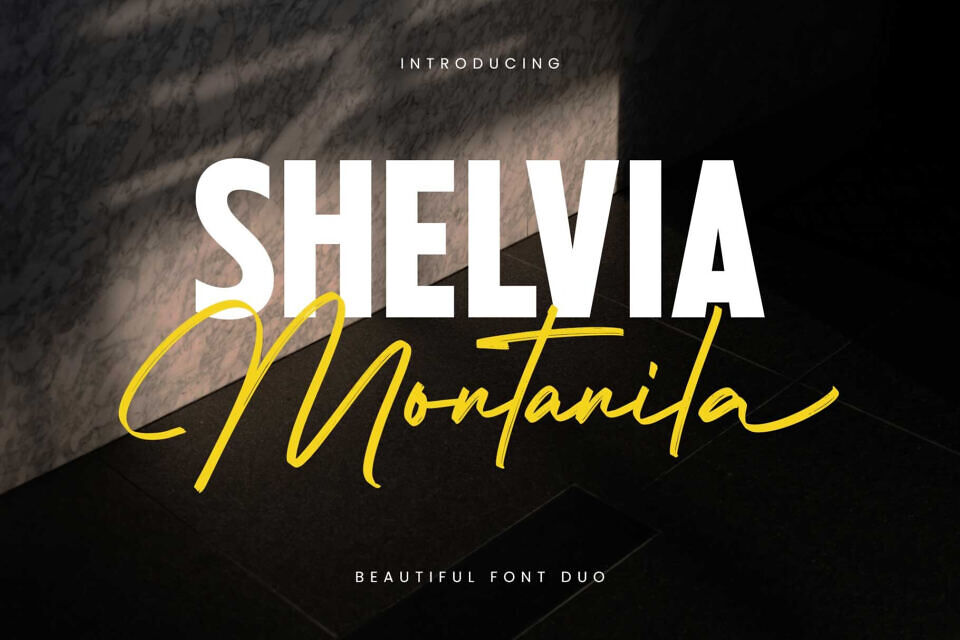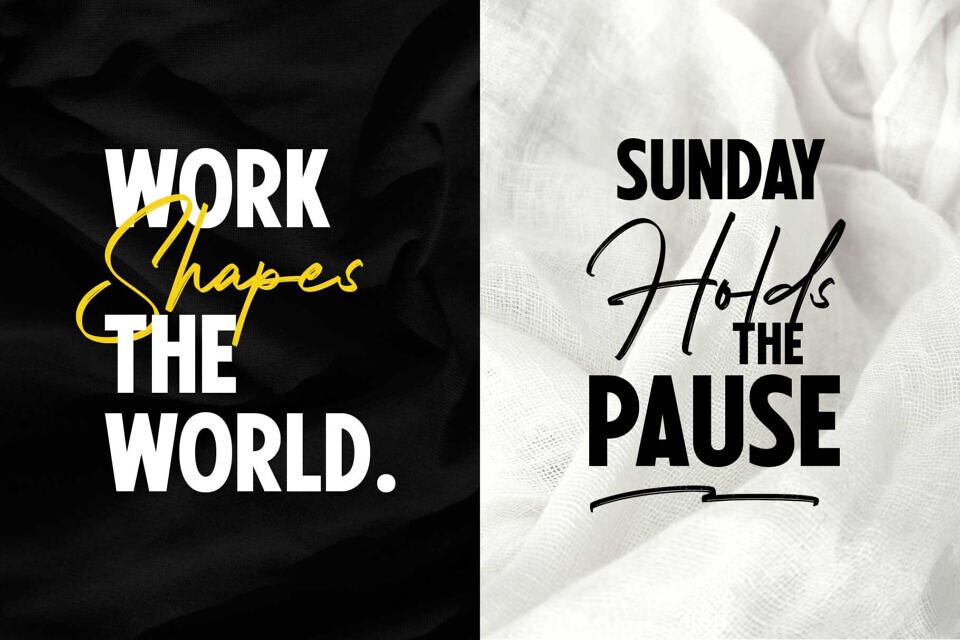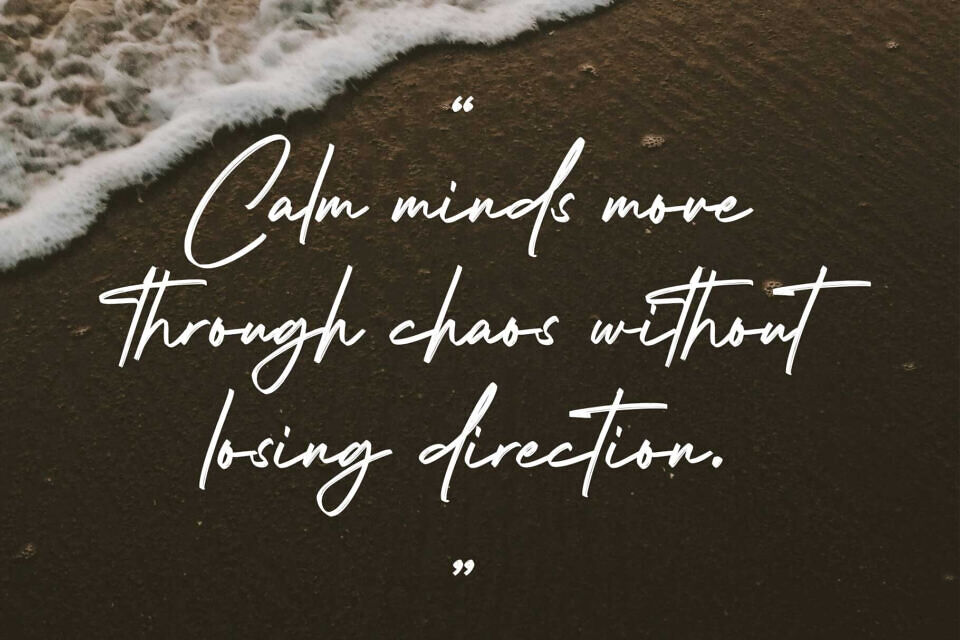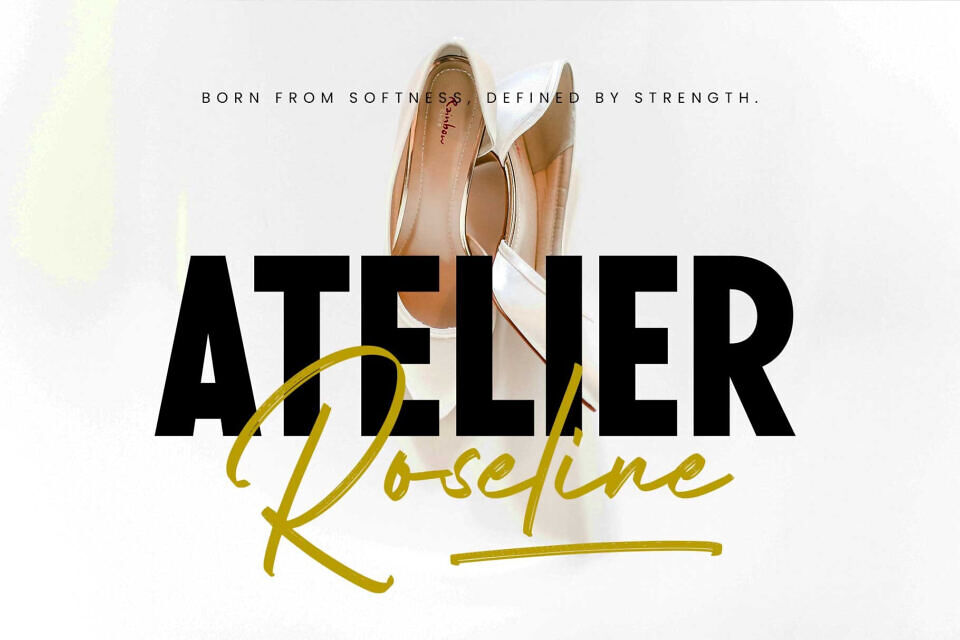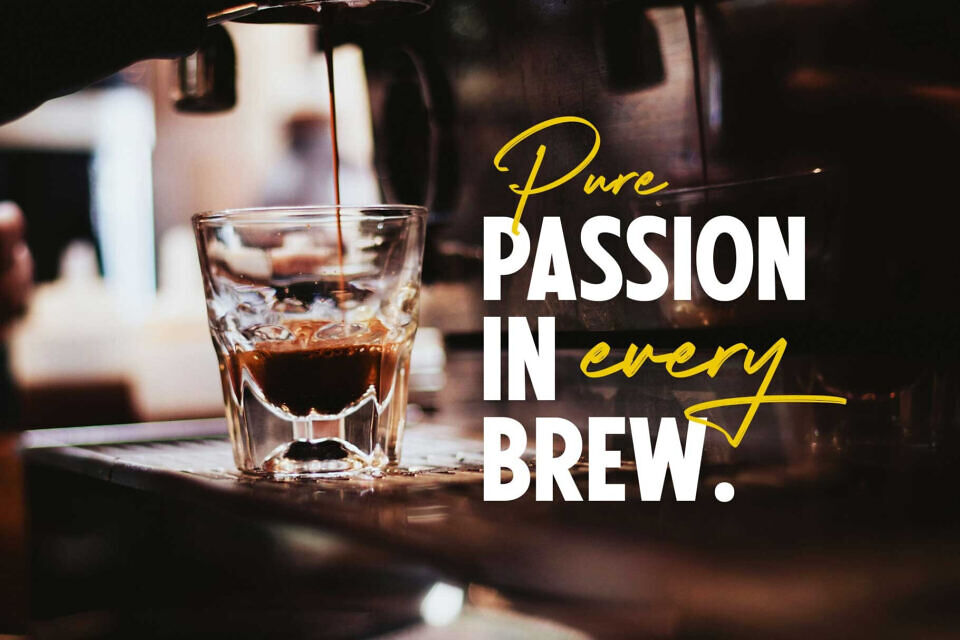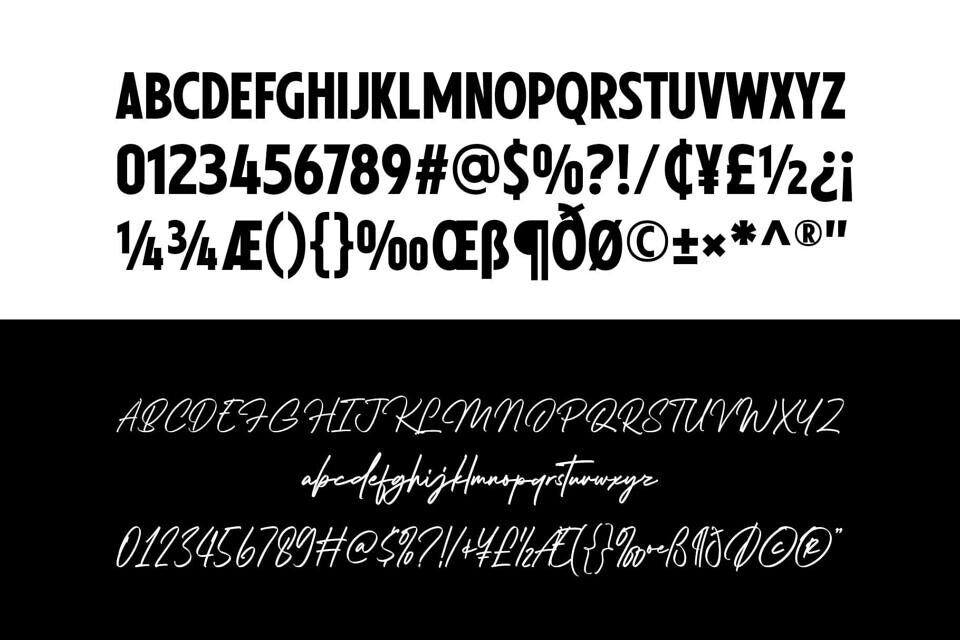
Shelvia Montanila Font Duo
Meet Shelvia Montanila, a beautiful font duo where bold clarity meets expressive elegance. This pairing blends a strong, modern sans serif with a fluid signature script—creating a perfect balance between structure and personality.
The sans serif is clean and confident, ideal for headlines and bold branding. Meanwhile, the signature script flows naturally with a handcrafted feel, adding warmth and sophistication. Together, they create contrast that feels both modern and timeless.